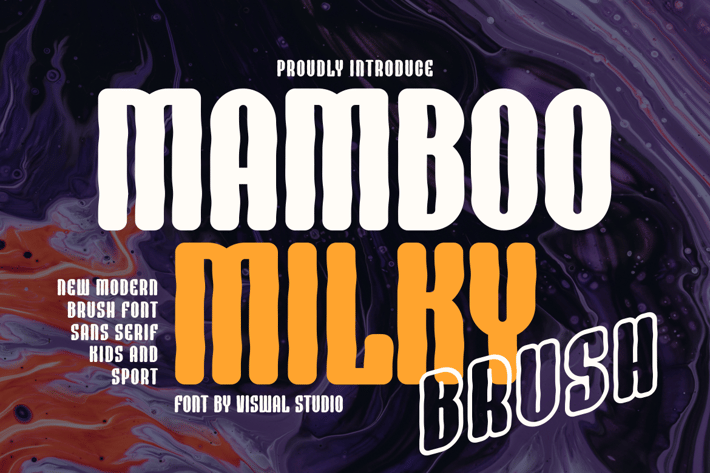
MAMBOO MILKY BRUSH - Brush Font
Presenting MAMBOO MILKY BRUSH - Font is suitable for badge, labels, logo, branding, magazine, poster and etc. Our fonts have Uppercase & Lowercase, Numeral & Punctuation, Multilingual support and Opentype Features. For Amazing designs you can mix with other fonts as a complement.